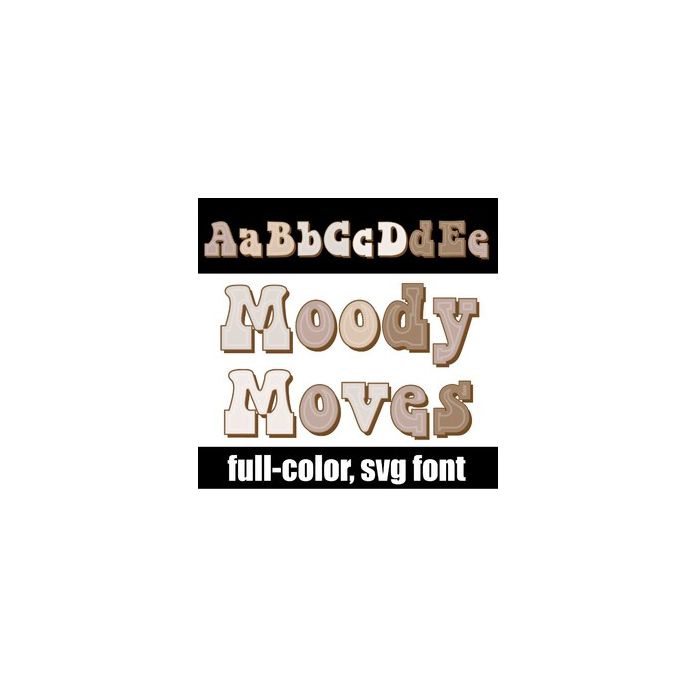
This full-color font features retro, hippy-esque style lettering in an earthy color palette. There is an alt version you can access through your system's character map that contains additional colors of all the letters.